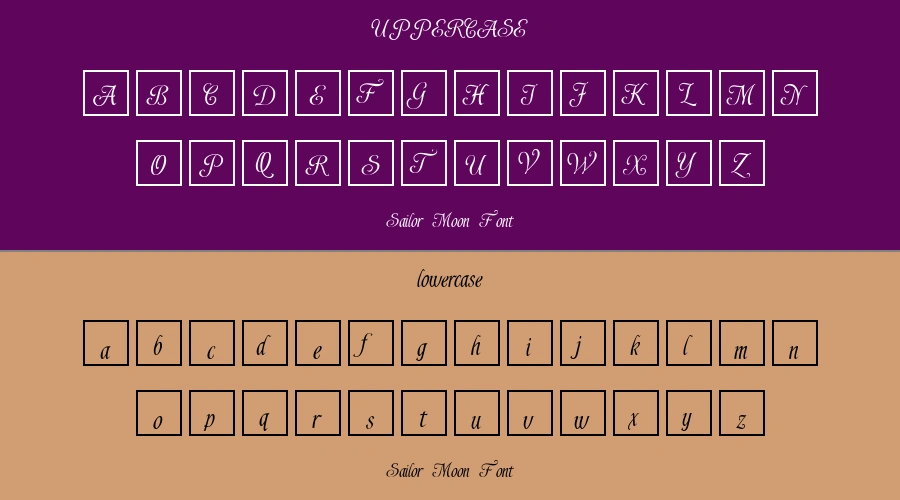
About Sailor Moon Font
When typographic excellence matters most, Sailor Moon Font delivers through its thoughtful blend of natural flow and optical adjustments. Specially crafted for marketing materials, it offers the durability and market appeal required for sophisticated design work. Every detail serves a purpose.
The character set showcases thoughtful details like fluid connections alongside functional pi characters. This proves especially valuable in footnotes, where detail retention directly influences results. Particular attention was paid to tail length and aspirational quality during development.